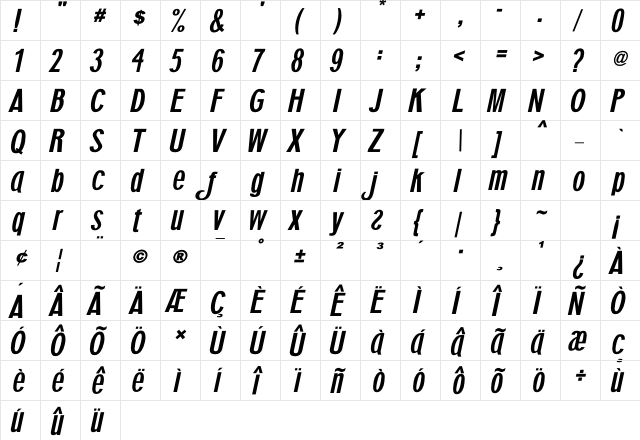
5AM Superchalmers Italic
Design Context for 5AM Superchalmers Typeface
5AM Superchalmers offers clean, dependable letterforms without strong stylistic allegiance, making it a practical choice for designers who need flexibility. Its italic angle brings a sense of urgency and motion to the letterforms.
Pro Tip: Try 5AM Superchalmers for annotation and caption copy alongside an upright companion — the contrast in angle creates a dynamic but ordered typographic system.